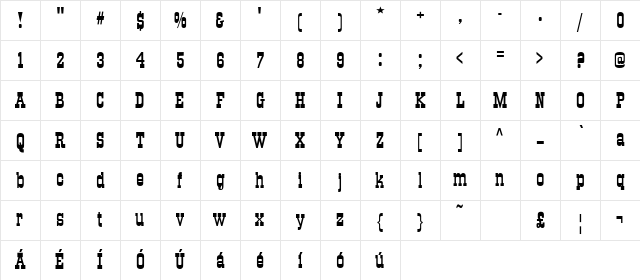
Complete Old Town Extended Regular glyph index. Displaying only characters natively supported by Old Town Extended Regular font.
Old Town Extended is a composed and adaptable typeface that performs quietly and consistently across a wide range of design contexts.